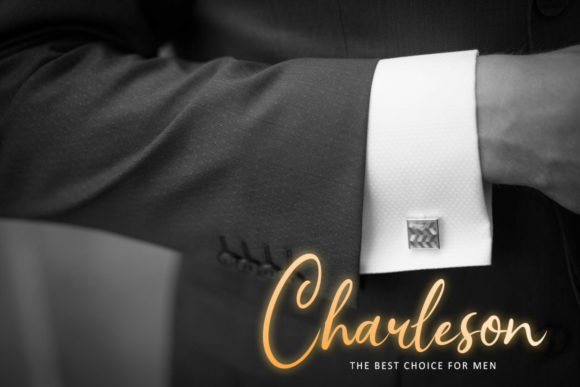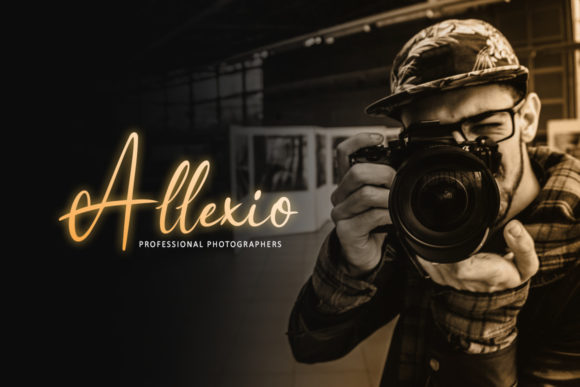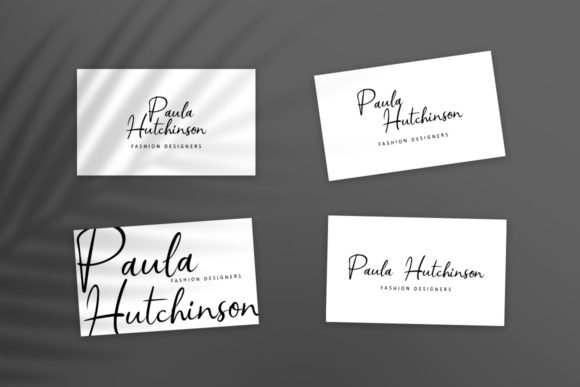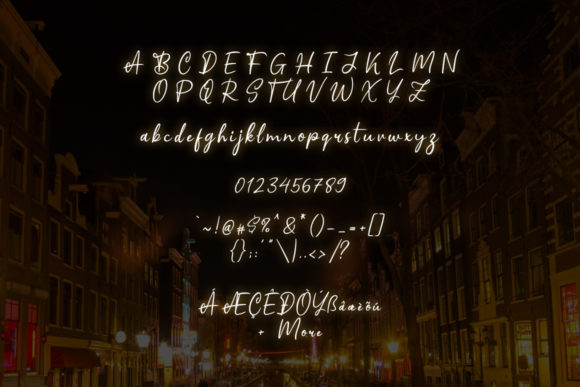
Introduction to Schagen Font
Schagen is a modern homage to classic calligraphy that feels unique and powerful.
It will add an authentic vibe to your next design project .
Key Features of Schagen Font